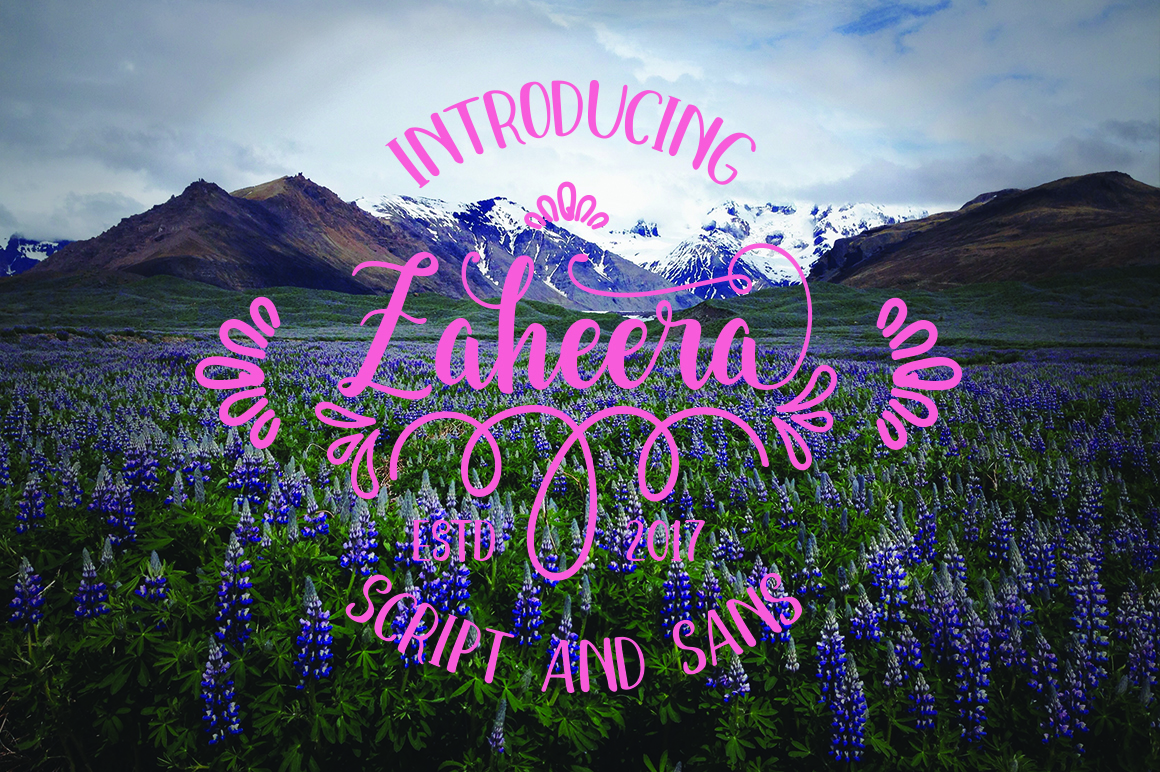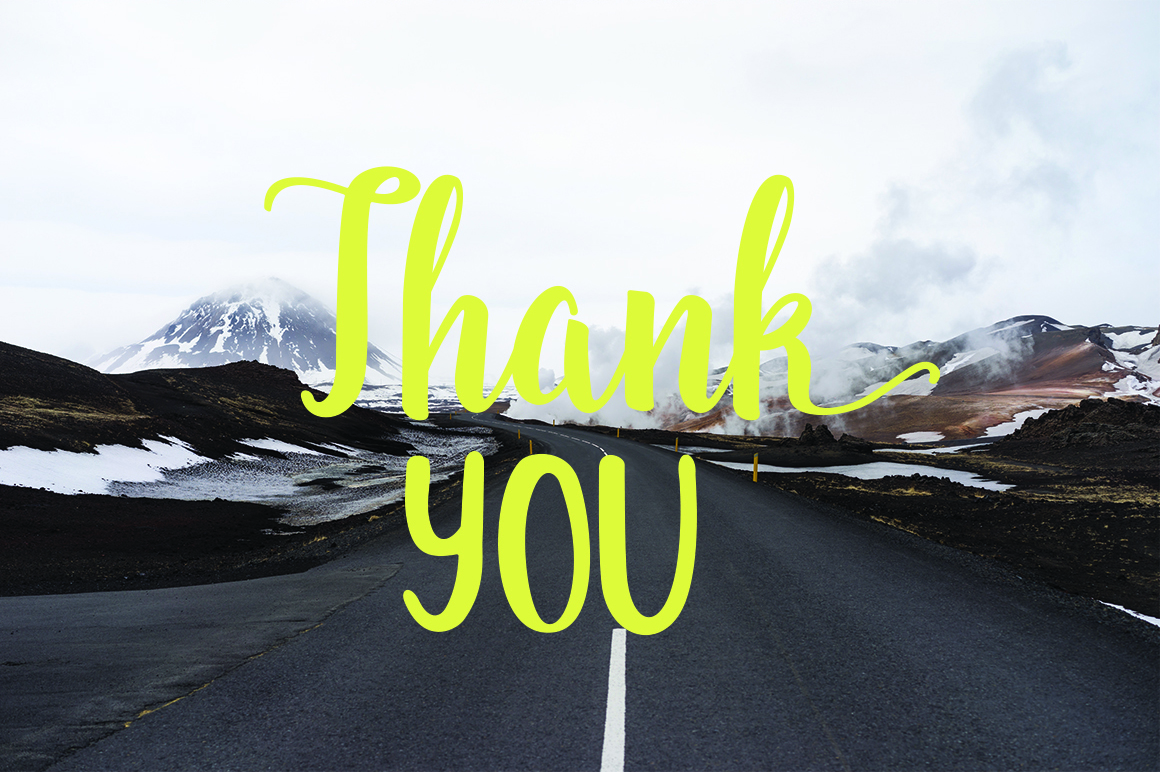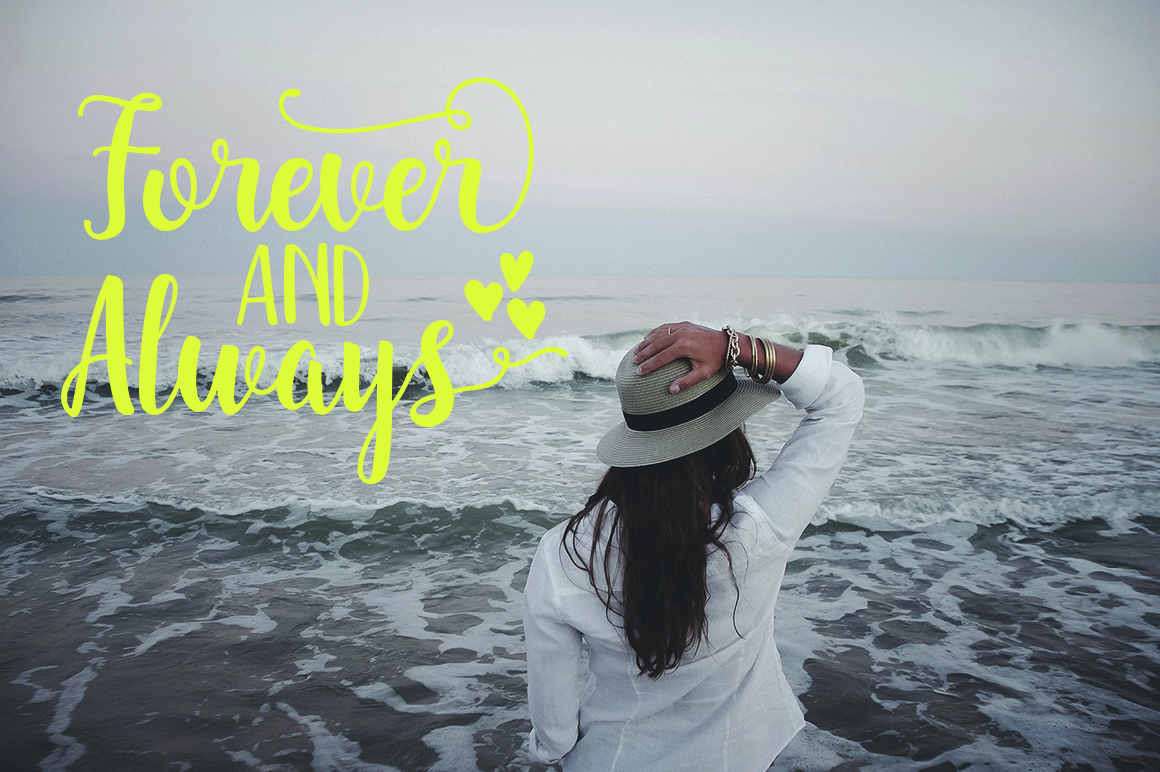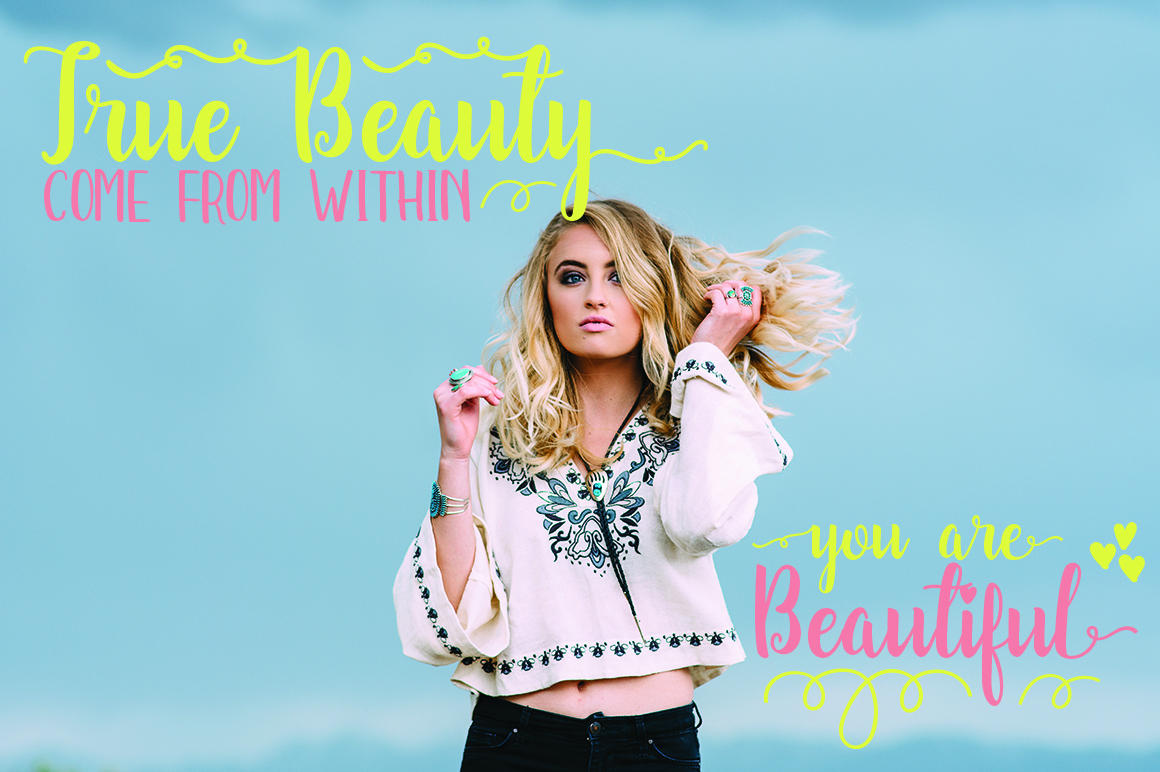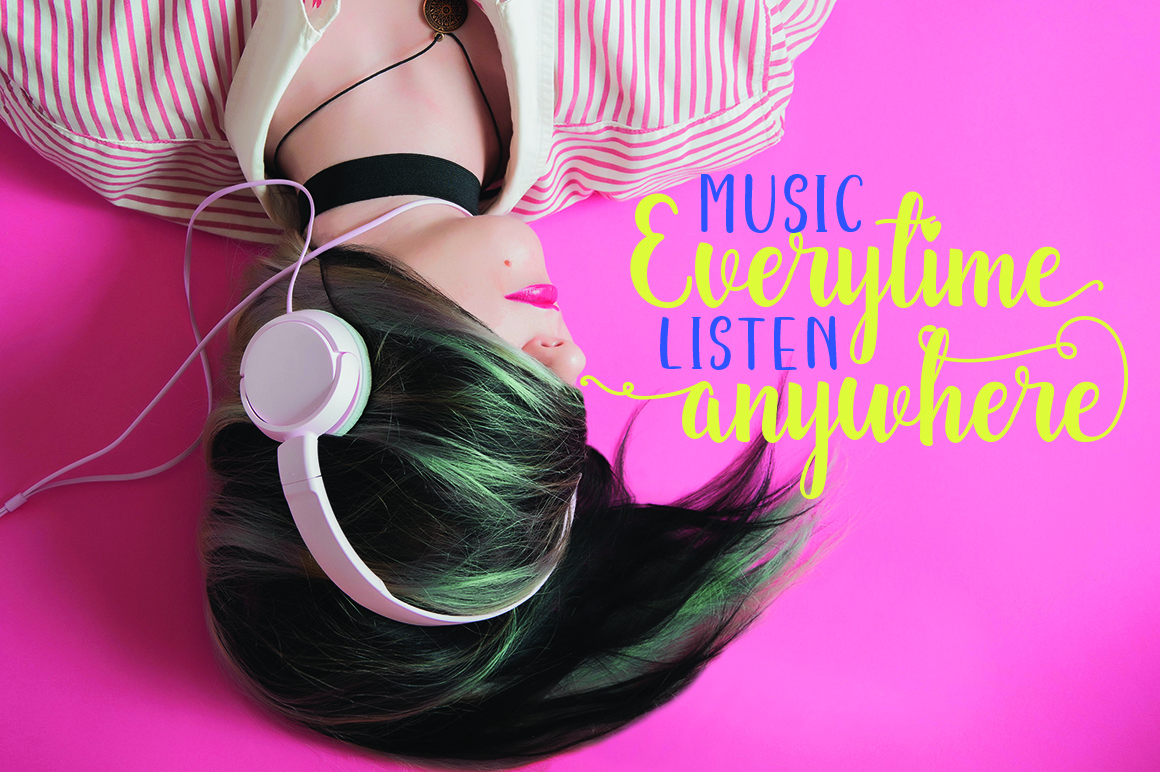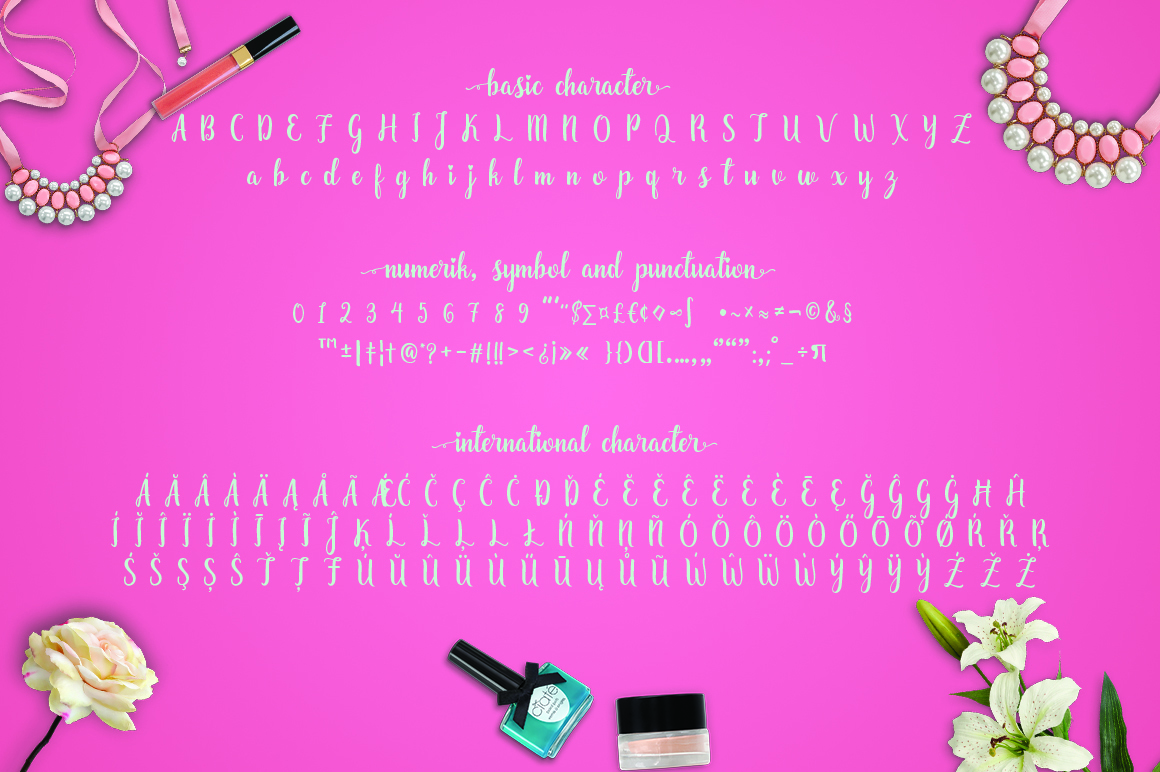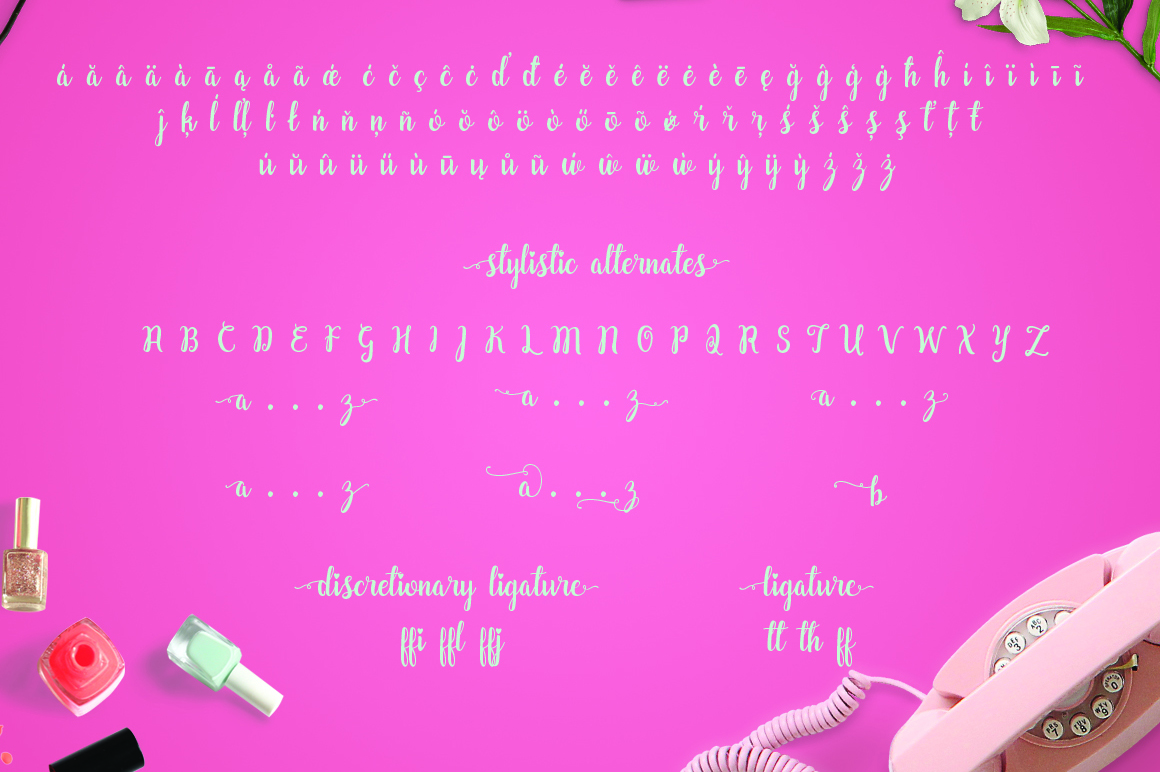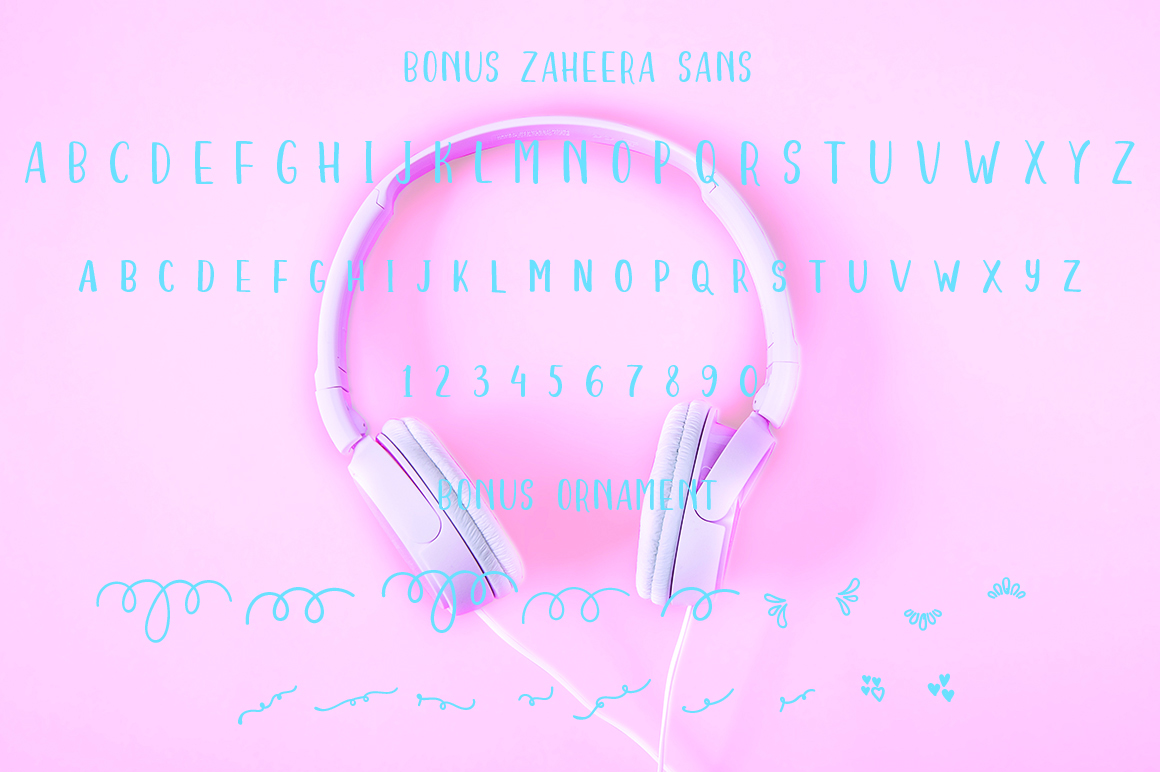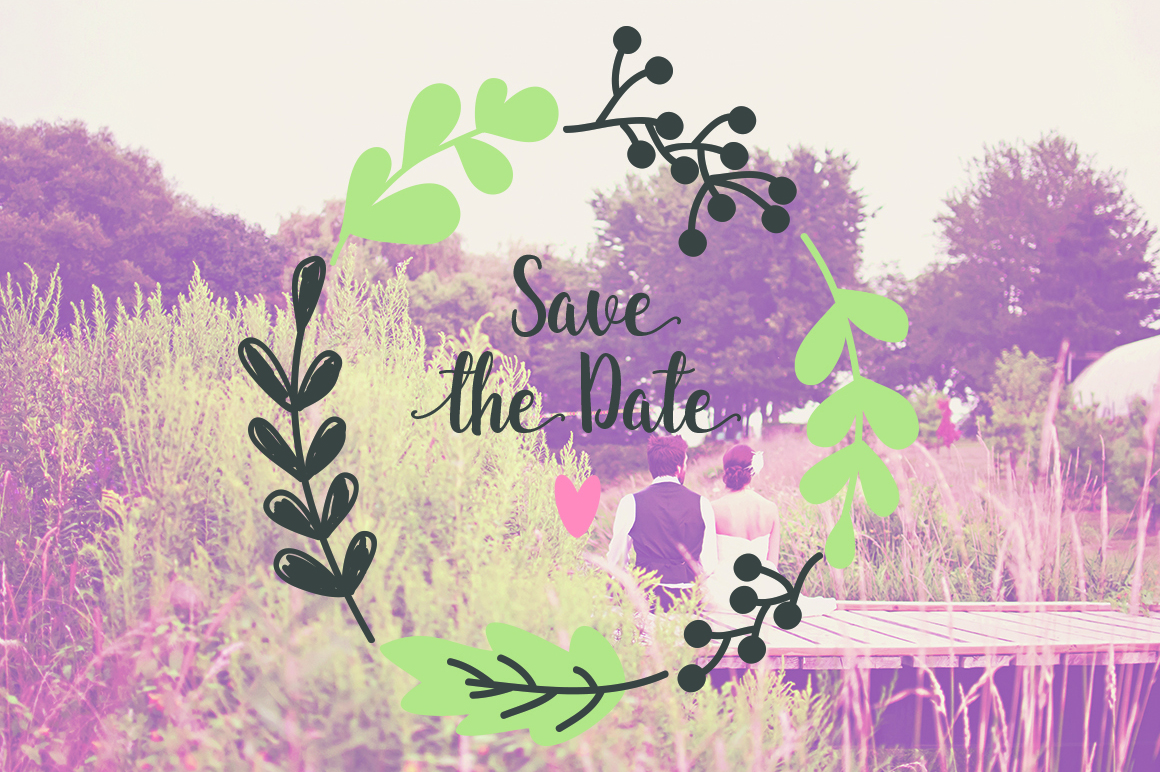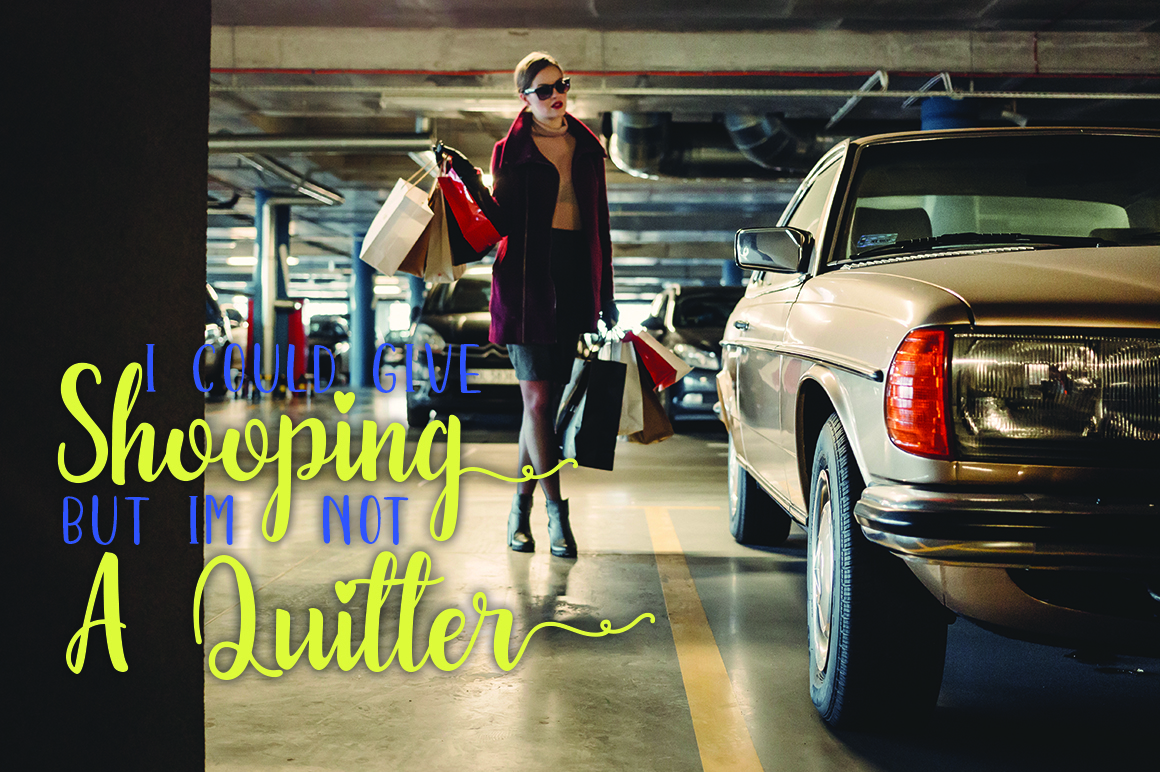
HomeScript FontsZaheera Font Script Fonts Zaheera Font FacebookXPinterestWhatsApp Zaheera Font Poster 2 Zaheera Font Poster 3 Zaheera Font Poster 4 Zaheera Font Poster 5 Zaheera Font Poster 6 Zaheera Font Poster 7 Zaheera Font Poster 8 Zaheera Font Poster 9 Zaheera Font Poster 10 About Zaheera Font Zaheera is a fun script font. Besides the script you will also get the complimentary Zaheera Sans. DOWNLOAD NOW People also explored Monster Pumpkin Font Dangellio Font Crowfeather Slowly Font Uniqueen Font Malibu Calligraphy Font Natalia Font Saturday Morning Font 284 0 TagsZaheera Font Previous articleIt is Definitely Possible FontNext articleSareeka Font LEAVE A REPLY Cancel reply Comment: Please enter your comment! Name:* Please enter your name here Email:* You have entered an incorrect email address! Please enter your email address here Website: Save my name, email, and website in this browser for the next time I comment. Personal Use Free Grillin Personal Use Free Read more about this font Makeba Font Personal Use Free Read more about this font I Am Exceptional Personal Use Free Read more about this font Bashira Personal Use Free Read more about this font BLOG Using Fonts in Digital Marketing: Tips to Strengthen Your Brand Identity In the realm of digital marketing, every visual element plays a crucial role in shaping a brand's identity, and fonts are no exception. The... The 10 Best Handwriting Fonts to Add Personality to Your Designs 5 Fonts That Will Dominate Design Trends in 2026 Top 10 Handwritten Fonts That Elevate Your Designs